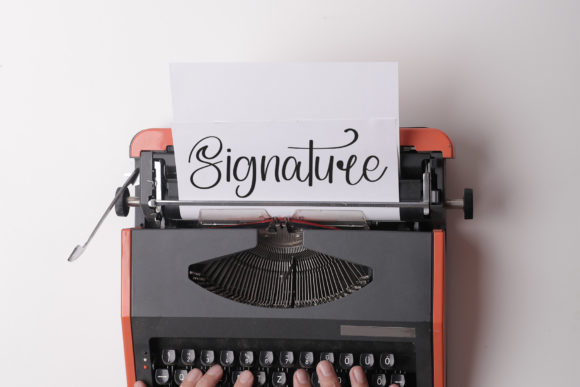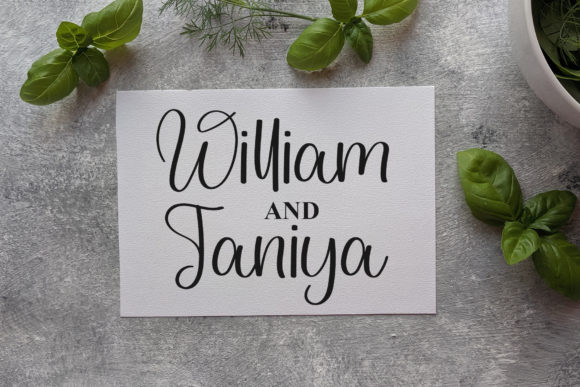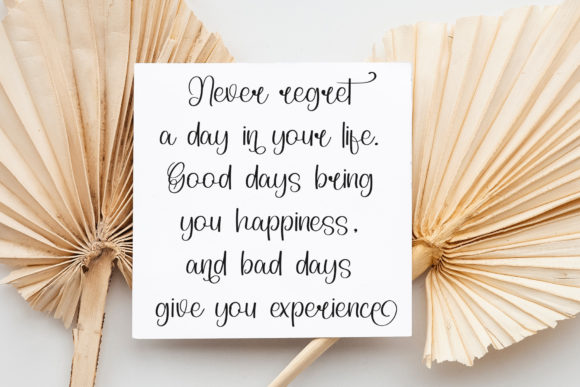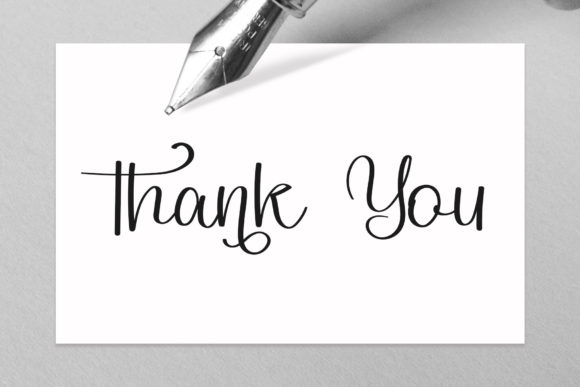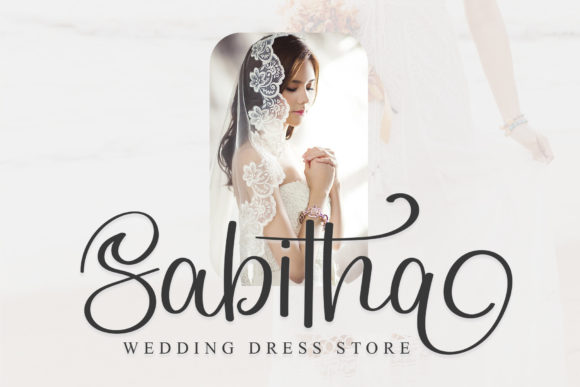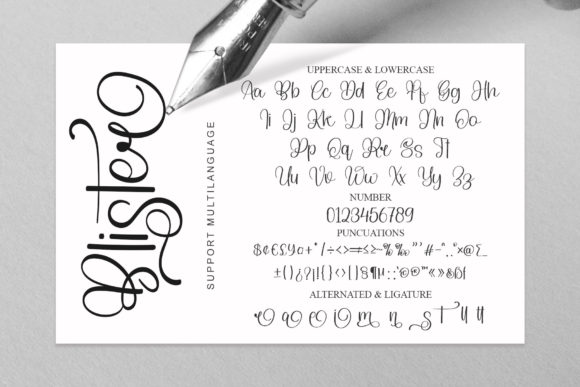
Blister Font
About Blister Font
Blister is a romantic and sweet calligraphy typeface characterized by characters that gracefully dance along the baseline. It boasts a casual yet elegant touch, making it a charming choice for various design applications. With its PUA encoding, accessing all the glyphs and swashes of Blister is a seamless experience, providing designers with the ability to add beautiful and personalized flourishes effortlessly.
The romantic and sweet nature of Blister makes it particularly suitable for projects that aim to evoke emotions and convey a sense of charm. Whether used for wedding invitations, romantic quotes, or any design requiring a touch of elegance, Blister adds a delightful and unique flair.
The calligraphic style of Blister contributes to its casual yet refined aesthetic, making it versatile for both formal and creative applications. Its playful dance along the baseline adds a sense of movement and liveliness, enhancing the overall visual appeal of the text.
In summary, Blister is more than just a font; it’s a romantic and sweet calligraphy typeface designed to bring a touch of elegance and charm to your projects. With PUA encoding, designers can effortlessly access its glyphs and swashes, allowing for a personalized and beautiful typographic experience. Whether applied to wedding invitations or other creative endeavors, Blister enhances the visual allure with its distinctive and delightful design.